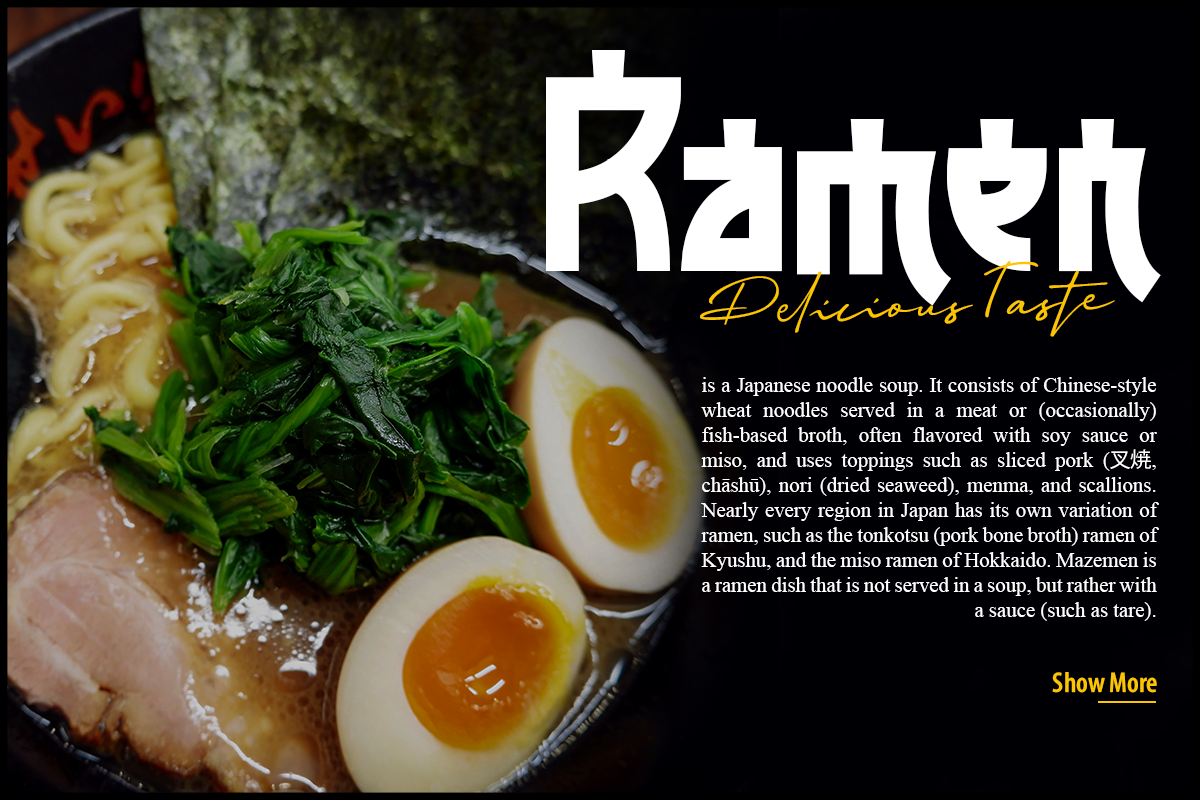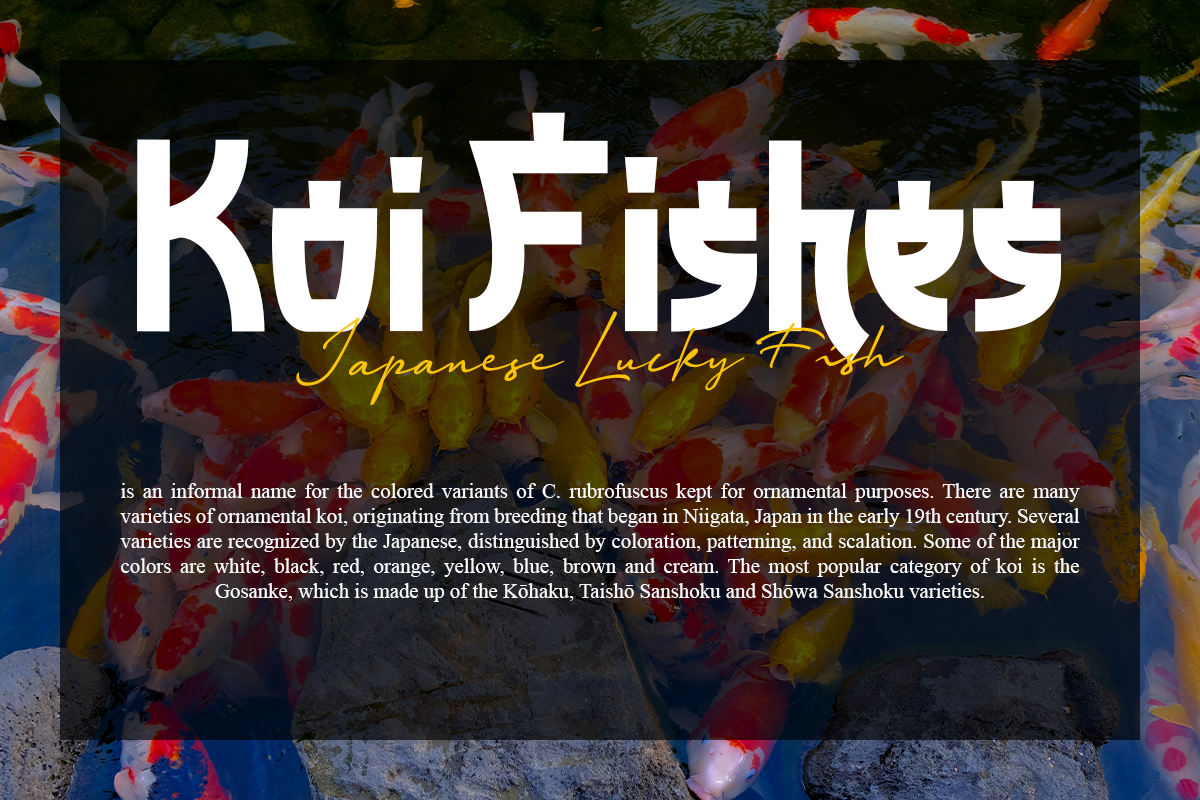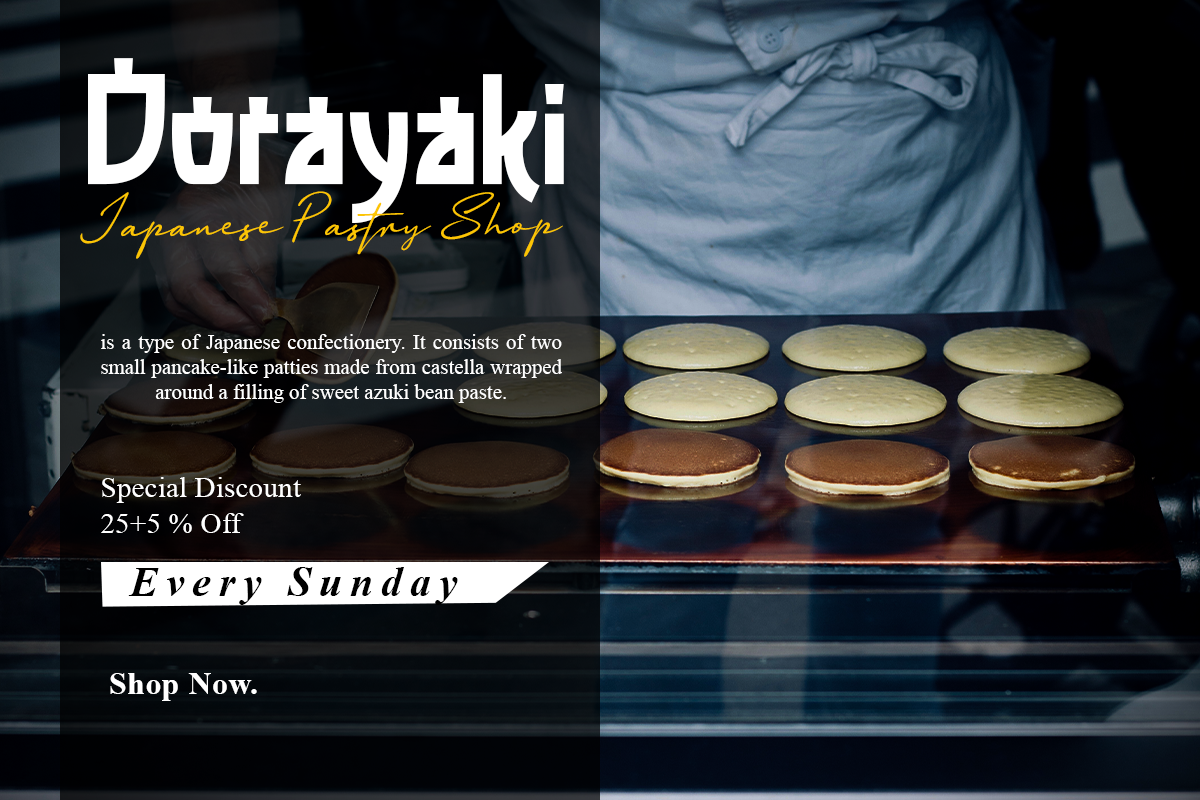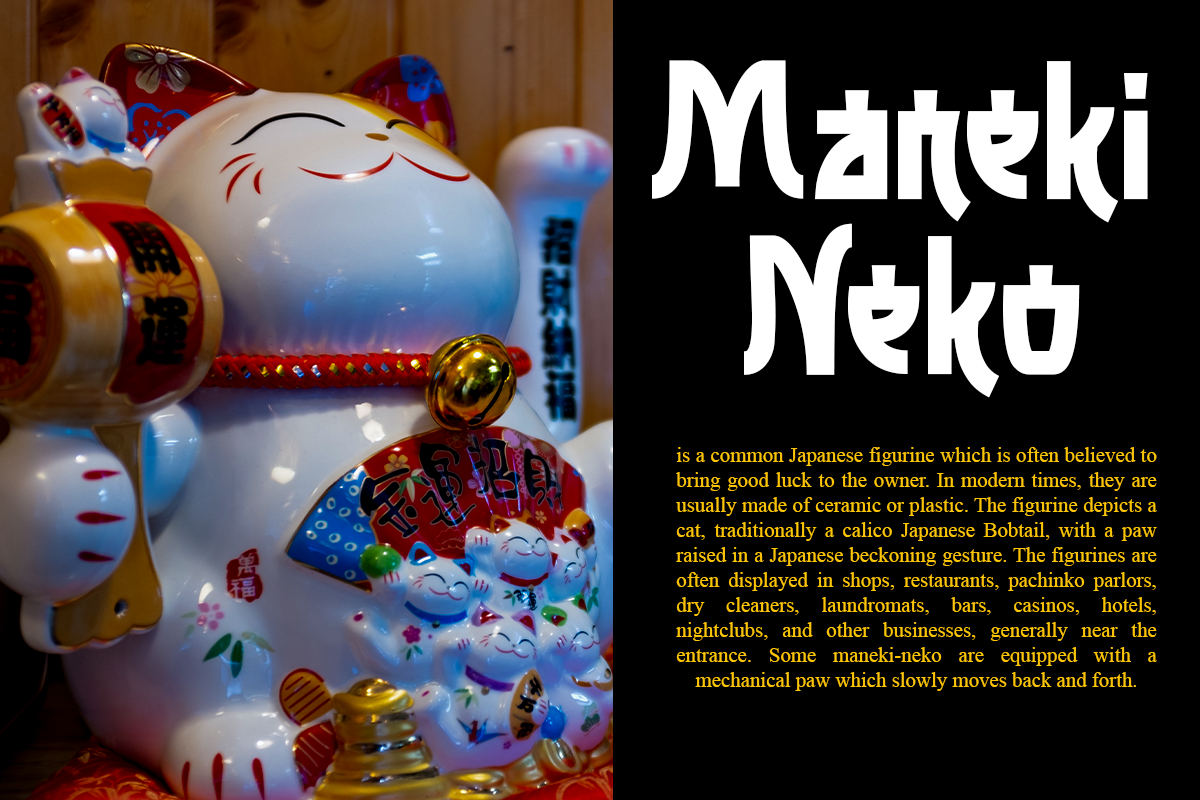
Fujiyama Free Font
Fujiyama Free Font presents an exceptionally distinctive Japanese-inspired display font. Elevate the aesthetics of your food menus, posters, flyers, or prints with its stunning visual appeal. Unleash the boundless possibilities of this font in your designs and witness the captivating results. This free typeface was designed by a talented Display Studio. If you like it don’t forget to check out the full version.